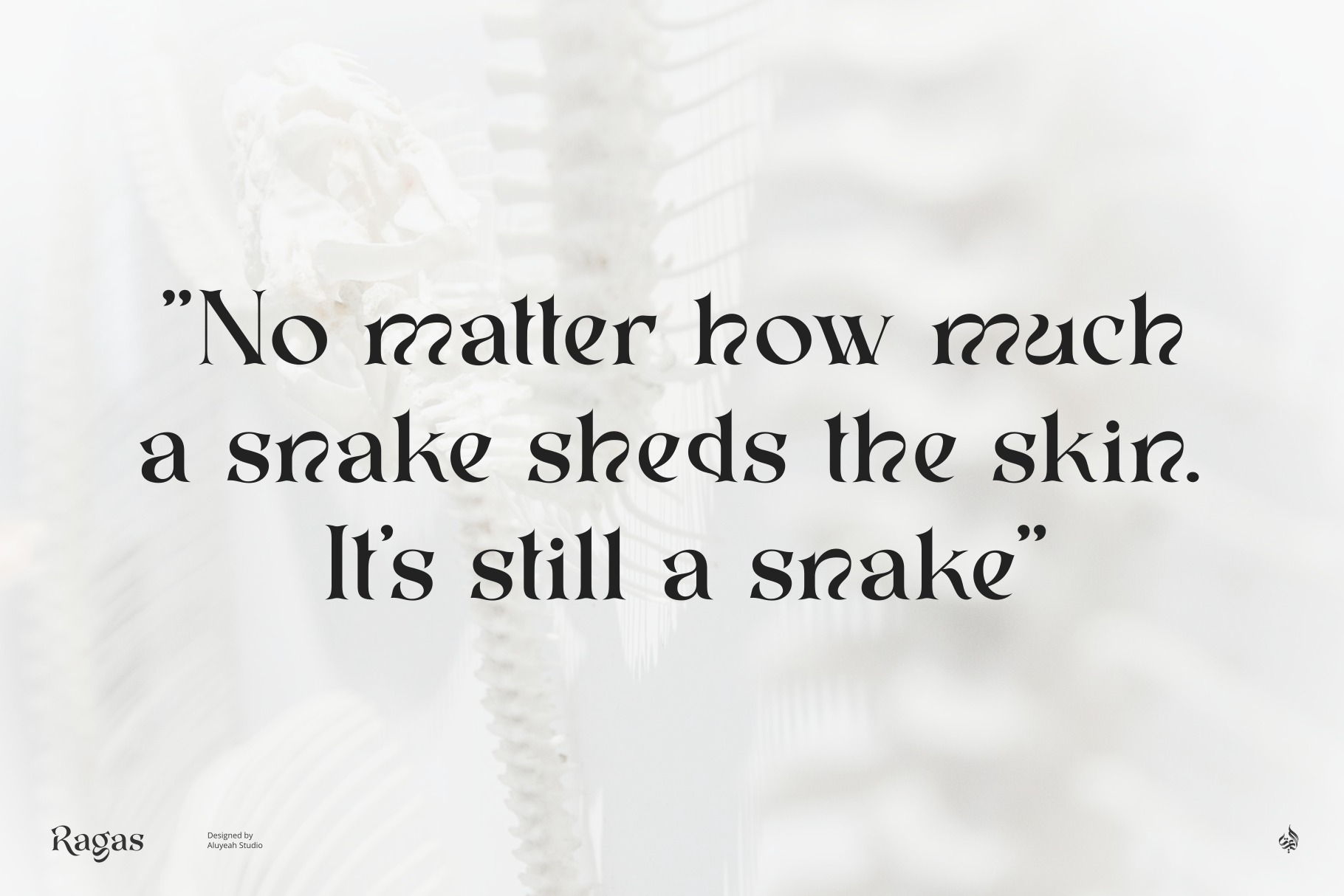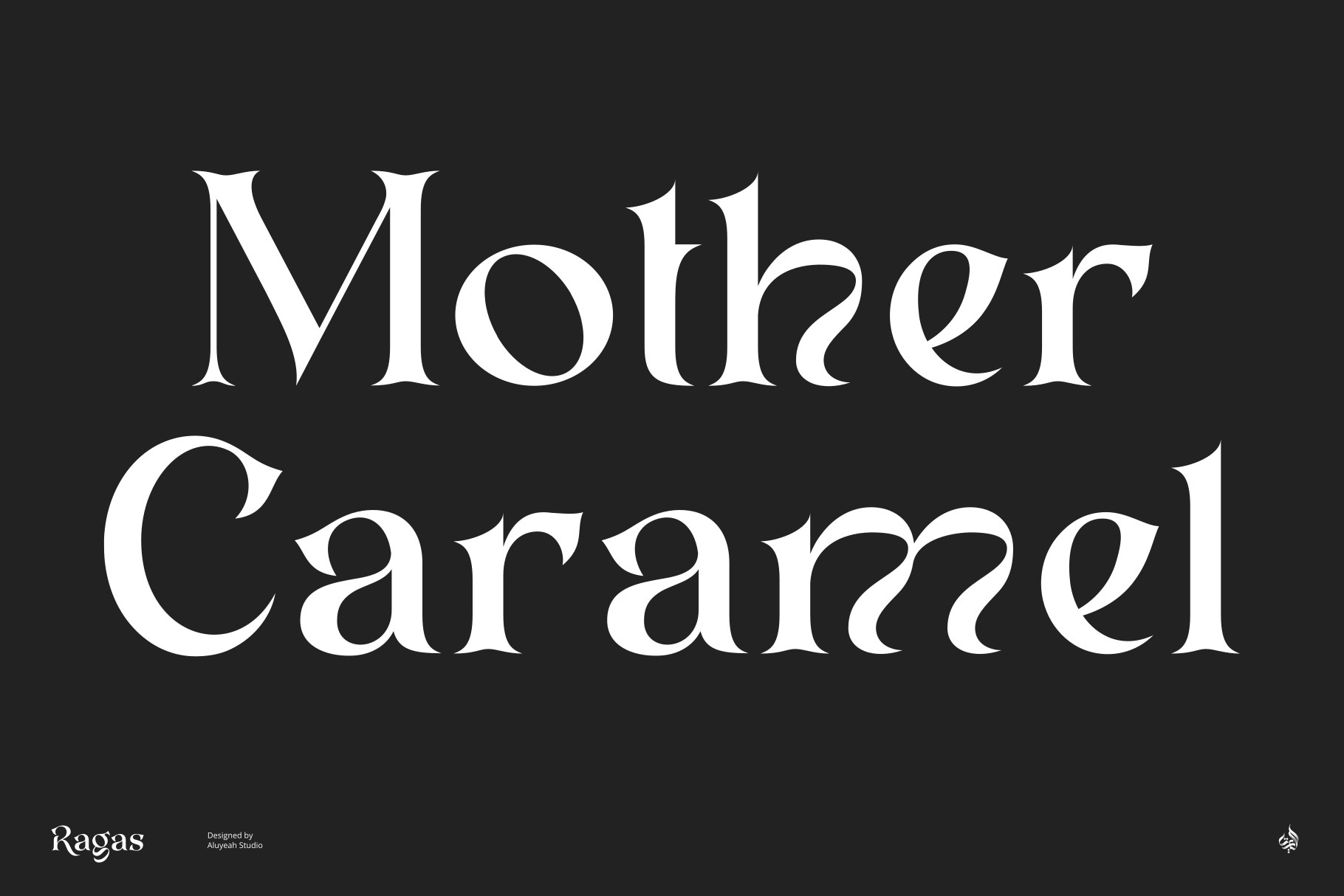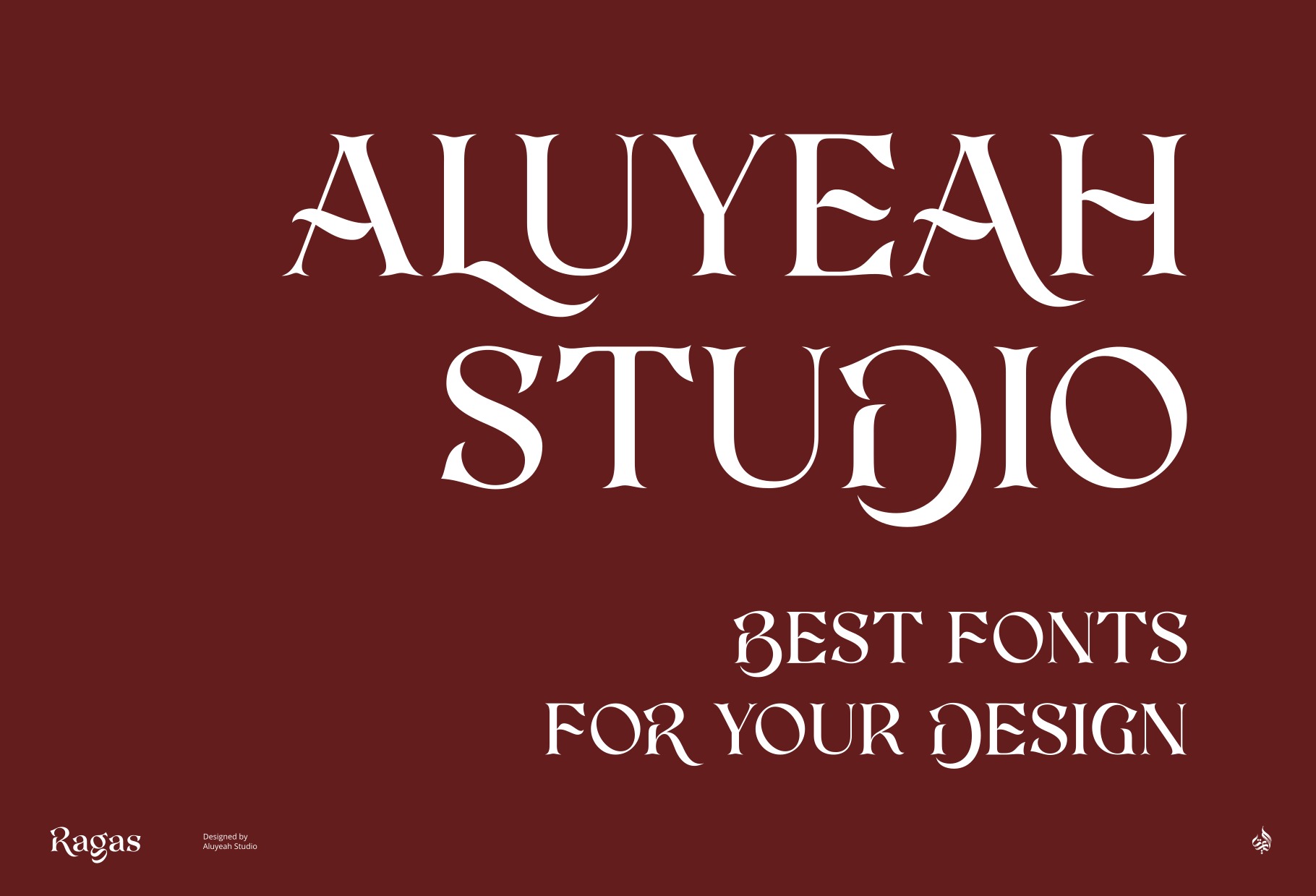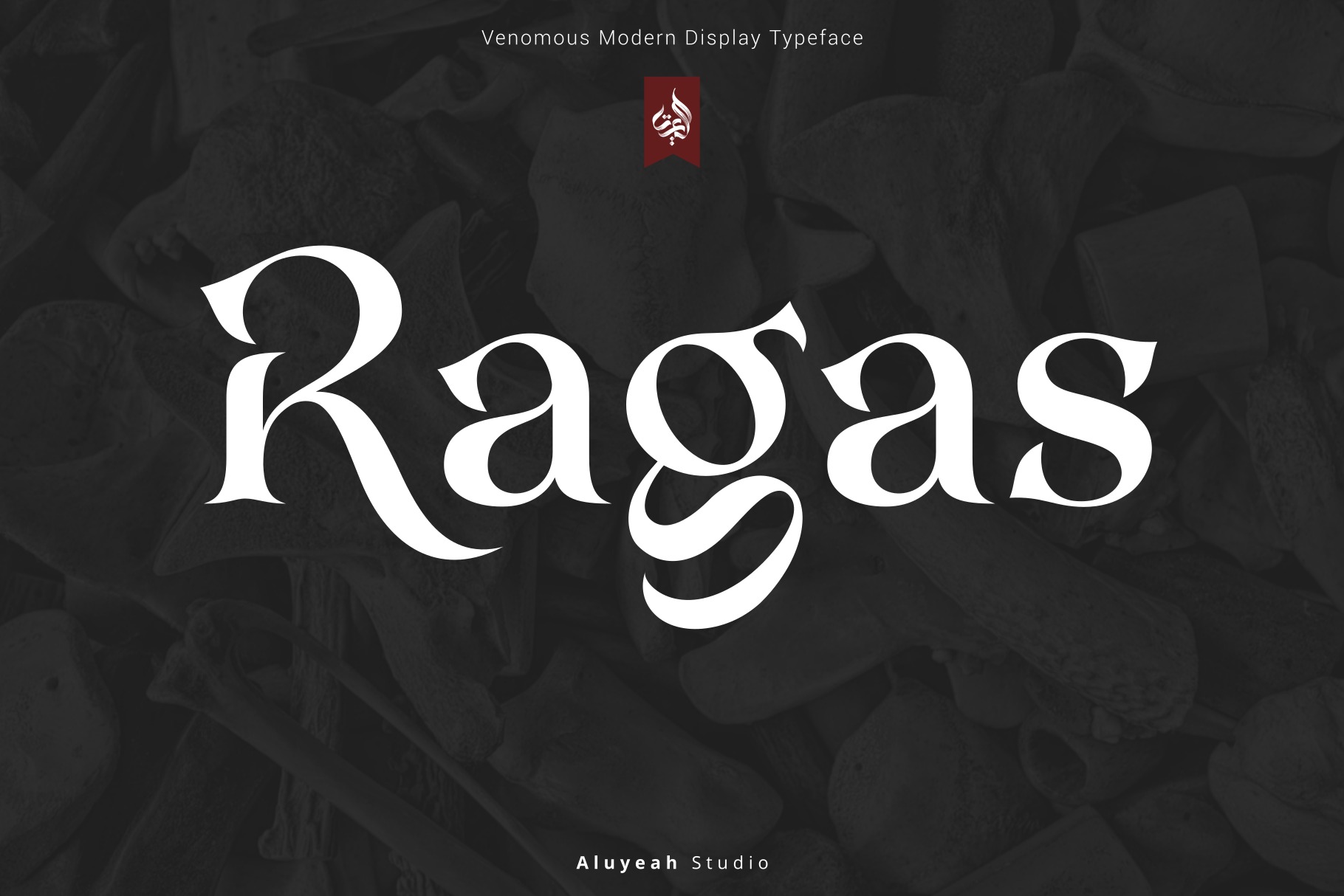
Ragas Serif Font
This font is built with bold and curvy characters, Perfect if you need fun for your projects. Made from font designer named Aluyeah Studio. Ragas in Javanese means something that when you are hit by it, you will feel like being bitten by a snake. Ragas can be snake bones, thorns, or other things that contain snake venom.